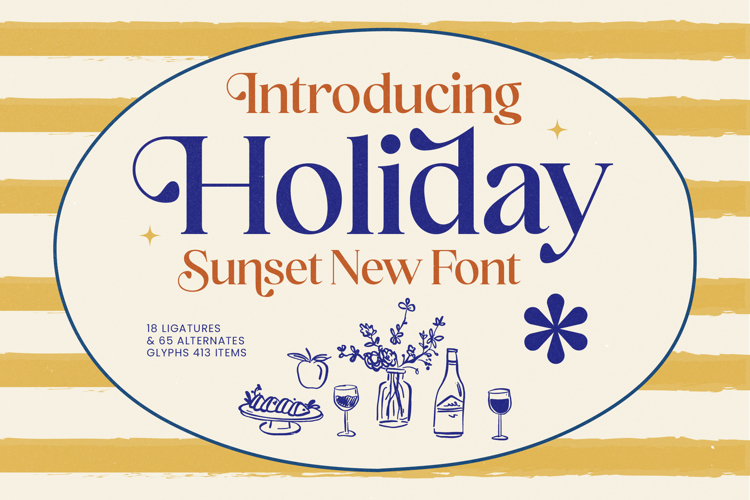
Holiday Sunset - Elegant Display Serif Font
Holiday Sunset is an invitation to embrace timeless beauty and sophisticated flair in every design project you touch. This typeface captures the essence of golden hour elegance, transforming simple layouts into breathtaking visual narratives.
Inspired by the warm glow of Mediterranean evenings and the refined aesthetic of mid-century travel posters, this font breathes life into the spirit of leisure and luxury. Its delicate curves and sharp terminals reflect a world where style and relaxation coexist in perfect harmony.
As a modern serif display, this typeface commands attention with its luxury typography and refined high-contrast serif strokes. It is the ultimate editorial font for those seeking a massive branding impact, blending classic letterforms with a contemporary, high-fashion edge.
Perfectly aligned with the modern serif trend, this typeface meets the demand for editorial display fonts that feel both nostalgic and forward-thinking. In an era of character-driven typography, it provides the unique personality needed to stand out in a saturated digital landscape.
This versatile typeface is the ideal choice for high-end logo design, cohesive branding identities, and premium editorial layouts. It adds an air of sophistication to boutique packaging, romantic wedding stationery, and avant-garde fashion lookbooks.
The font package is a creative powerhouse, featuring a rich library of ligatures and alternates that allow for custom-tailored designs. With decorative swashes and comprehensive multilingual support including international characters, it is ready for global creative ventures.